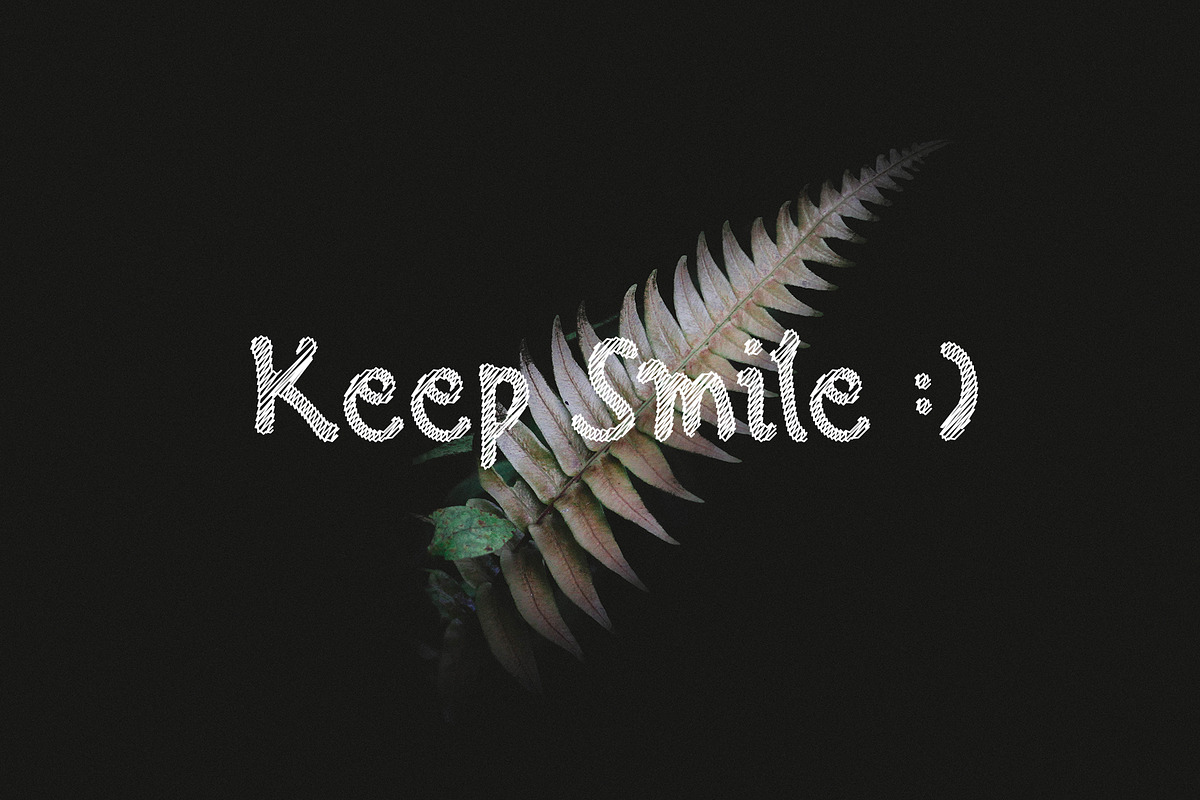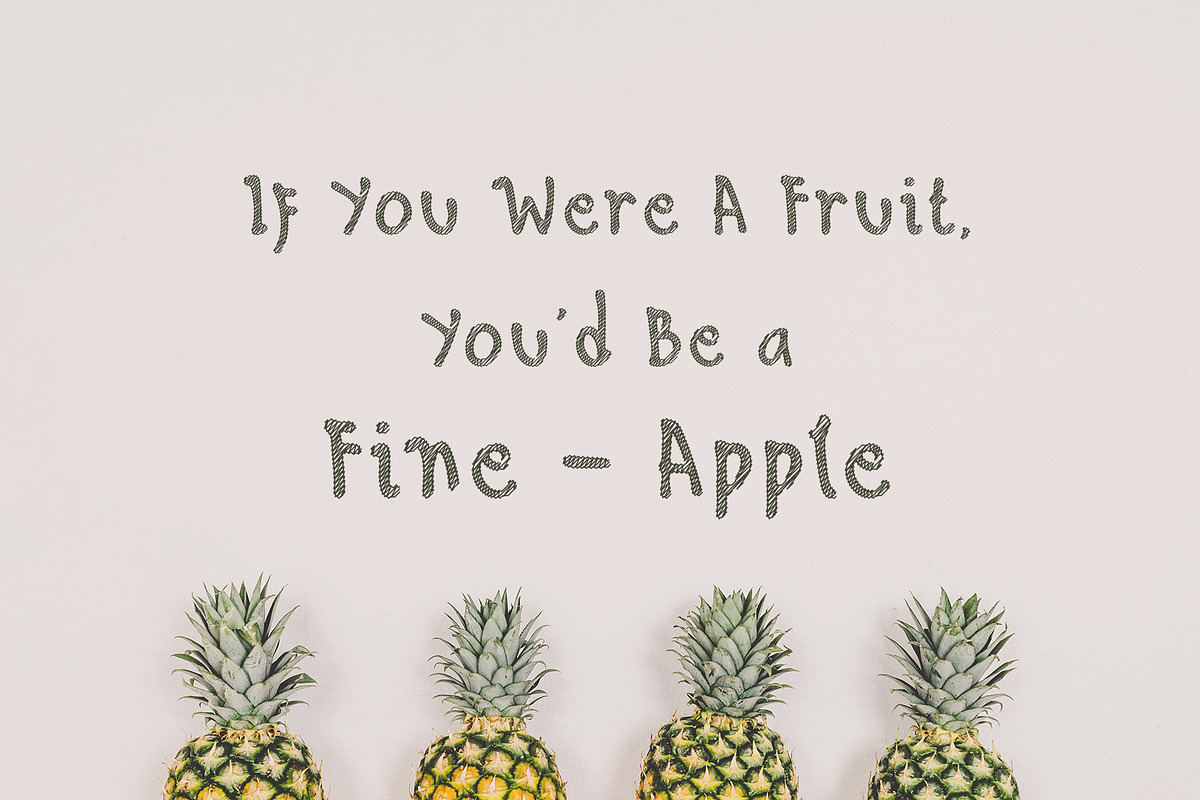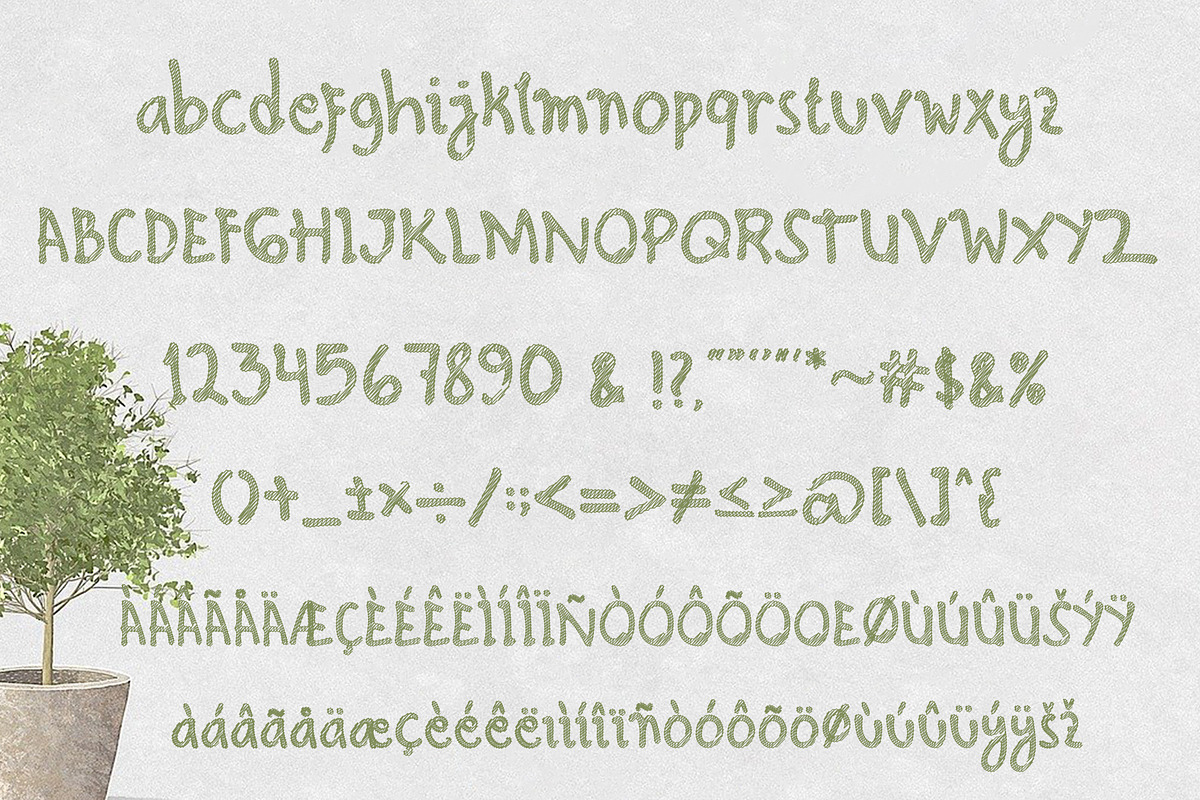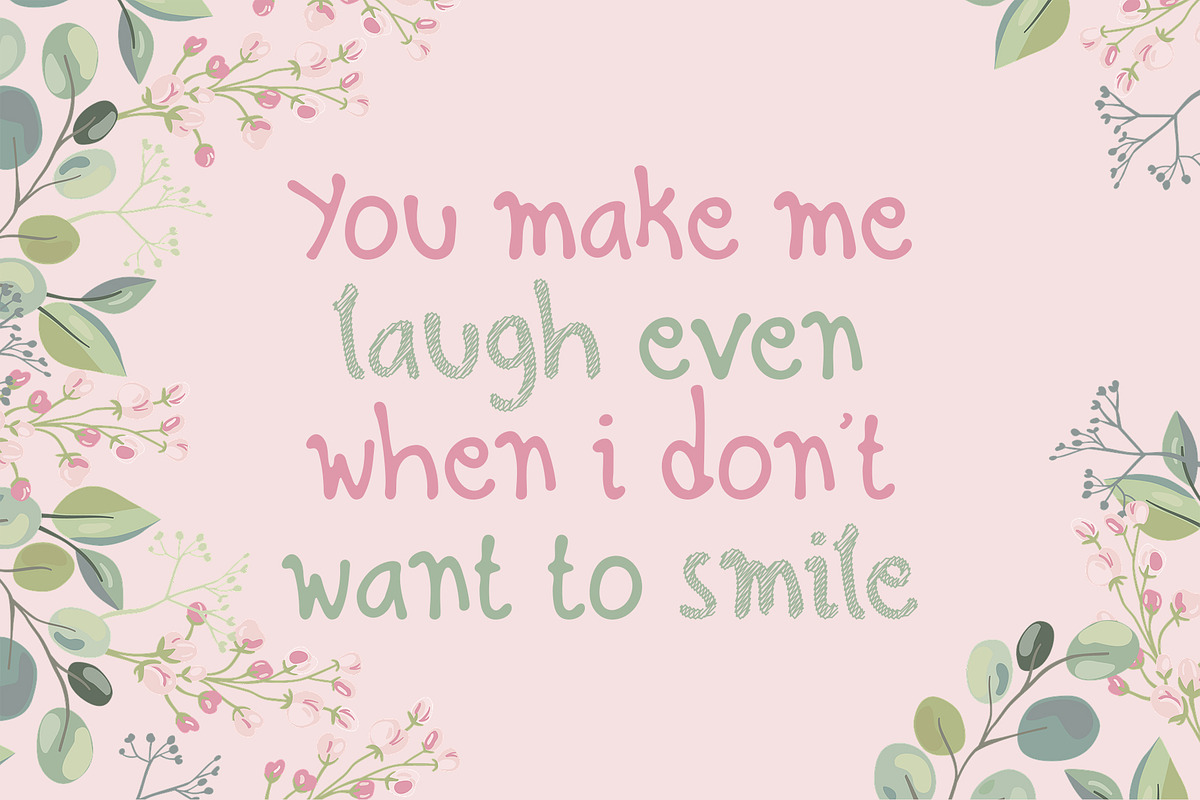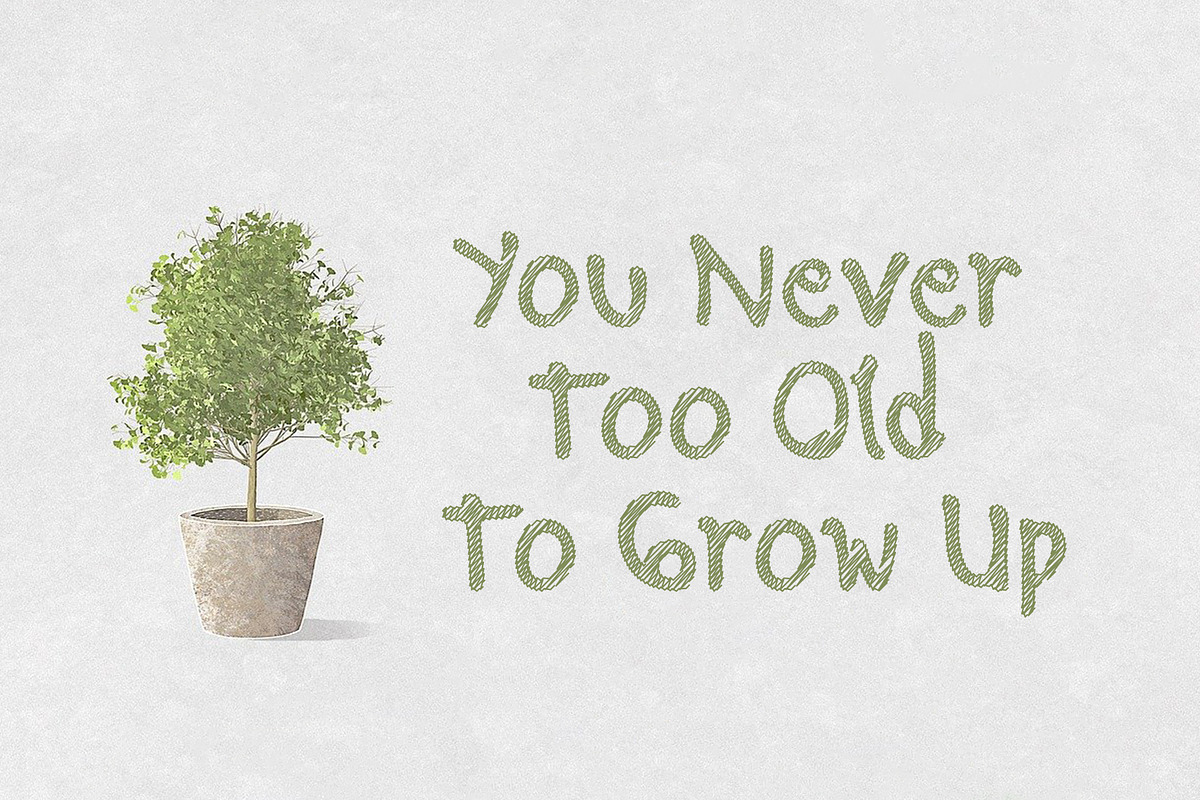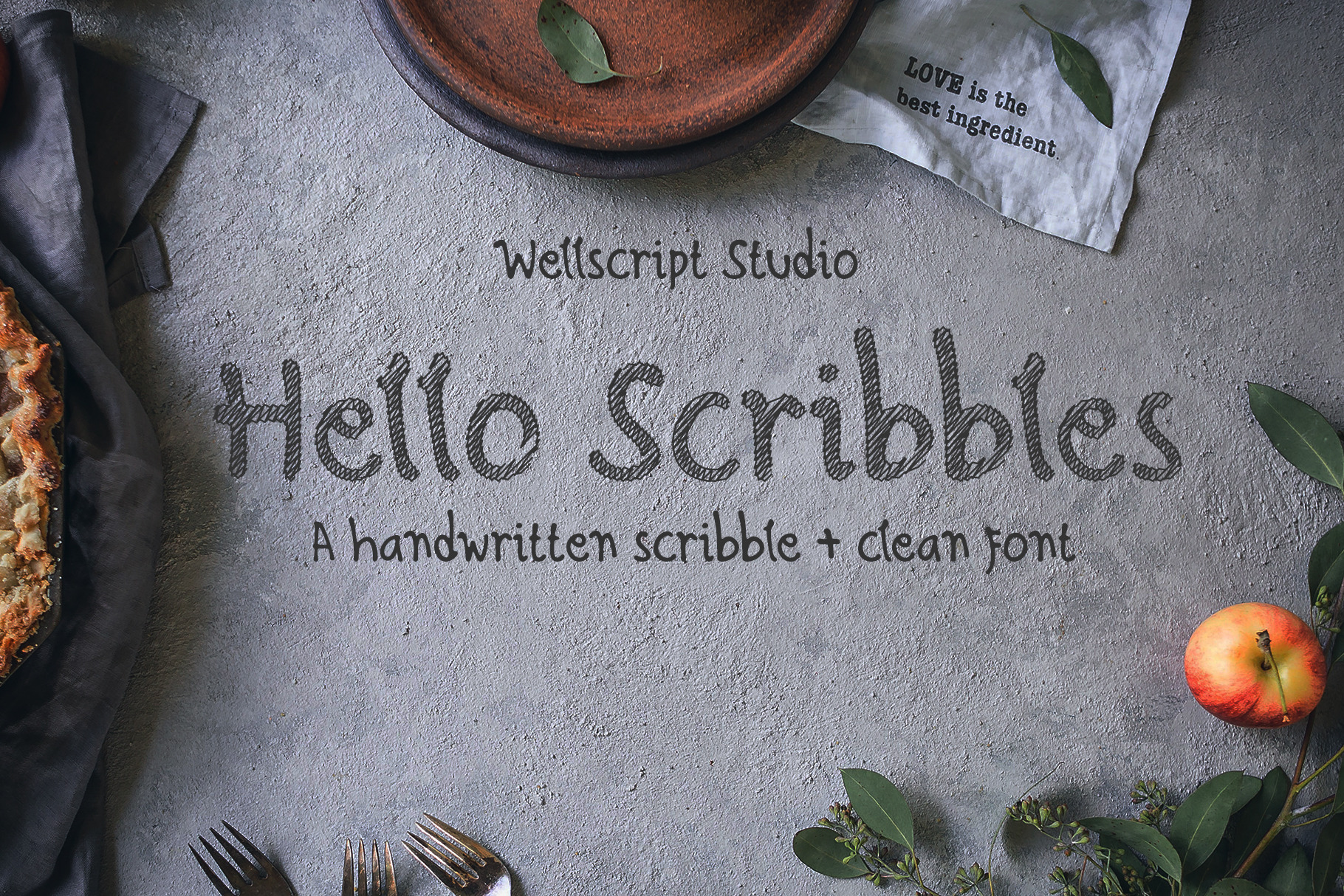
Hello Scribbles - Handwritten font
Hello Scribbles is a handwritten unique scribbles font, perfect for design, letter, cartoon birthday and book. Hello Scribbles is awesome for branding projects, logo, wedding designs, social media posts, advertisements, product packaging, product designs, label, photography, watermark, invitation, stationery and any projects that need handwriting taste.